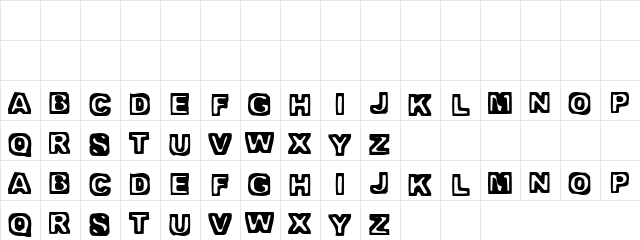
Trapped Heavy
Design Context for Trapped Typeface
Trapped is a composed and adaptable typeface that performs quietly and consistently across a wide range of design contexts.